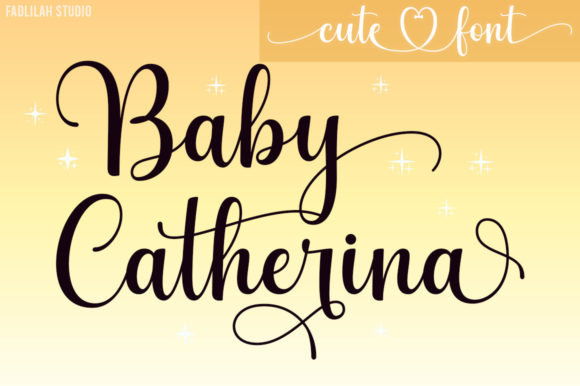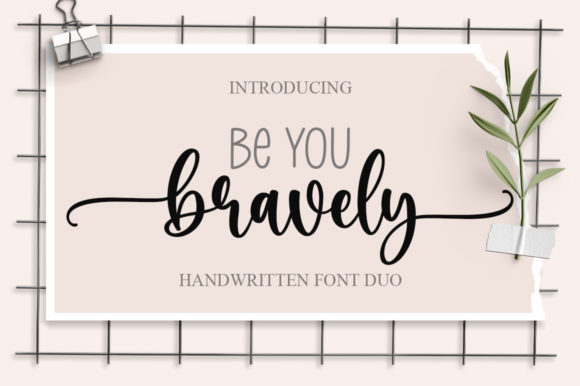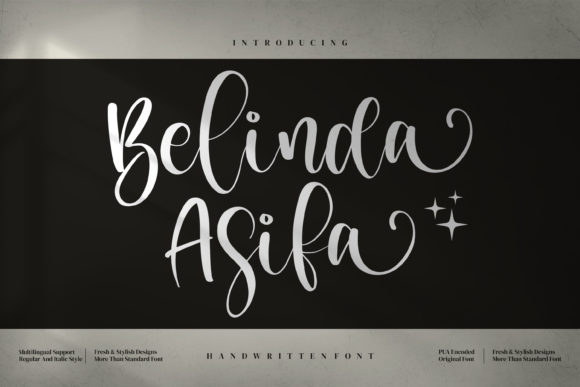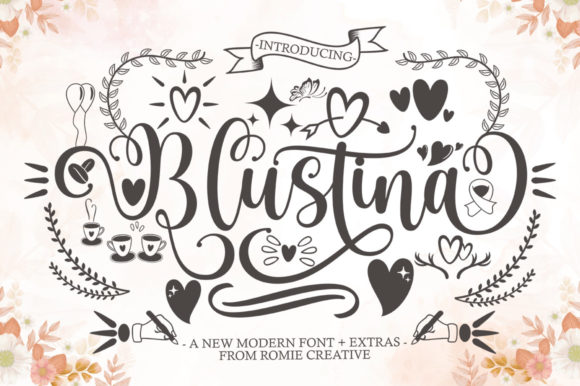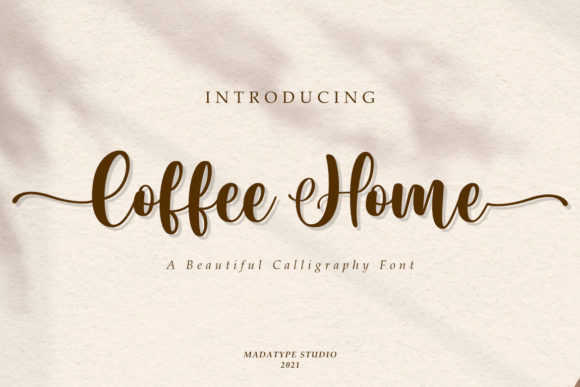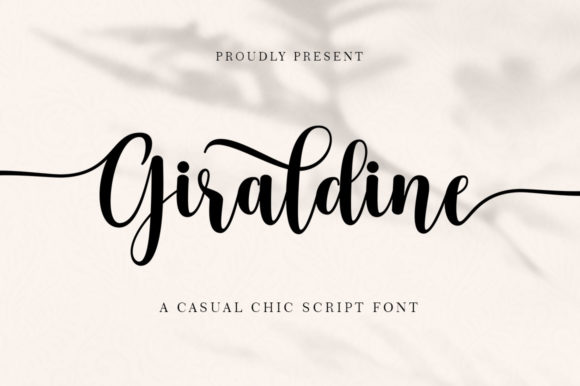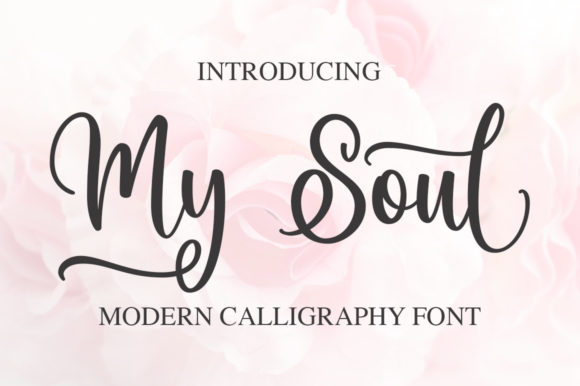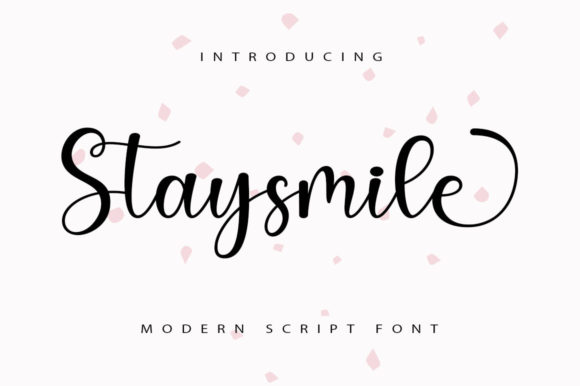
10 Free Calligraphy Fonts to Download Now – Part 8
Is your design portfolio in need of an upgrade? If calligraphy fonts are on your wish list, you’re in luck. Calligraphy fonts have the ability to add distinction to any project and are sure to stand out in any portfolio.
In this article, we will share 10 free calligraphy fonts you can download and add to your work right away.
What is a calligraphy font?
Calligraphy is a type of decorative handwriting that has been popular throughout history. It is characterized by ornate, looping letterforms and is often used for formal documents and invitations.
Calligraphy fonts are fonts that replicate the visual style of calligraphy. They are often used for wedding invitations and other formal occasions. Calligraphy fonts can be very ornate and detail-oriented, or they can be more simple and understated.
Why calligraphy fonts?
There are numerous benefits to using calligraphy fonts. For one, they can add a touch of elegance to any project. Whether you’re creating a website, a flyer, or even just a simple document, incorporating a calligraphy font can make it look more sophisticated and professional.
They can also be used to add a personal touch to something, giving it a more handwritten look. Another great thing about calligraphy fonts is that they are extremely versatile. You can use them for a variety of purposes, from creating formal documents to adding a fun and stylish touch to more casual projects.
What fonts pair well with calligraphy fonts?
One question that often comes up when discussing calligraphy fonts is: what fonts pair well with them? The answer, of course, depends on the specific calligraphy font in question and the overall tone that you want to set for your project.
There are some general guidelines that you can follow when trying to decide what fonts to pair with your calligraphy font:
First and foremost, it is important to consider the mood that you want to create with your calligraphy font. If you are going for a more formal look, then you will want to pair your calligraphy font with a serif font.
However, if you are looking to create a more relaxed and informal atmosphere, then you can get away with pairing your calligraphy font with a sans-serif font.
In addition to the overall mood, you also need to take into account the specific style of the calligraphy font that you are using.
For instance, if you are using a calligraphy font with a lot of ornate flourishes, then you will want to pair it with a simpler font so that your text is easy to read. On the other hand, if you are using a more subdued calligraphy font, then you can pair it with a more decorative font.
Finally, make sure that the fonts you are pairing have enough contrast between them. If the fonts are too similar, they will blend, and your text will be difficult to read. Conversely, if the fonts are too different, then they will clash and look jarring.
The best way to find a good balance is to use a calligraphy font with a medium-weight stroke and to pair it with a font that has a similar weight.
10 free calligraphy fonts to use in all your projects
Whether you’re a graphic designer, a wedding planner, or just someone who loves pretty fonts, calligraphy fonts can add a touch of elegance to any project.
Here are 10 of the new calligraphy fonts that you can use in all sorts of projects:
1. Blustina Script Font
2. Be You Bravely Font
3. My Soul Font
4. Giraldine Font
5. Belinda Asifa Font
6. Baby Catherina Font
7. Coffee Home Font
8. Betanty Font